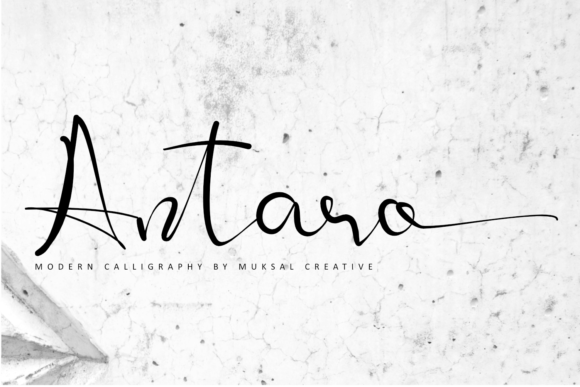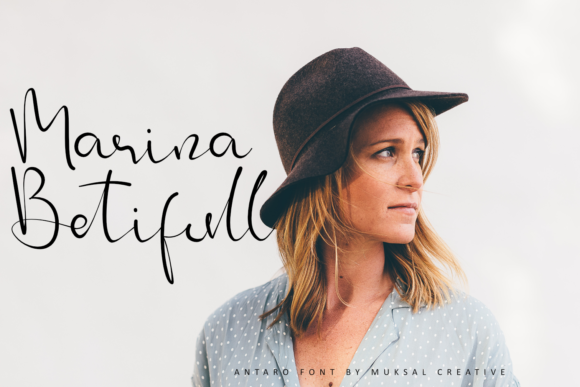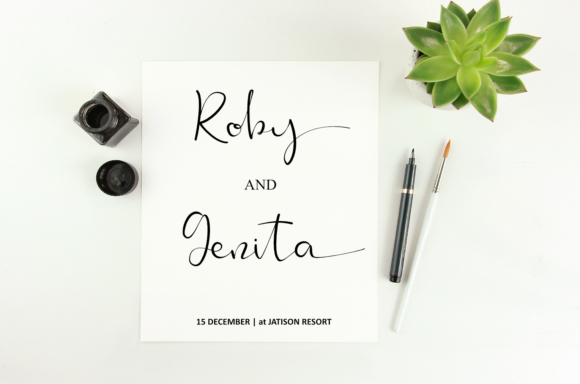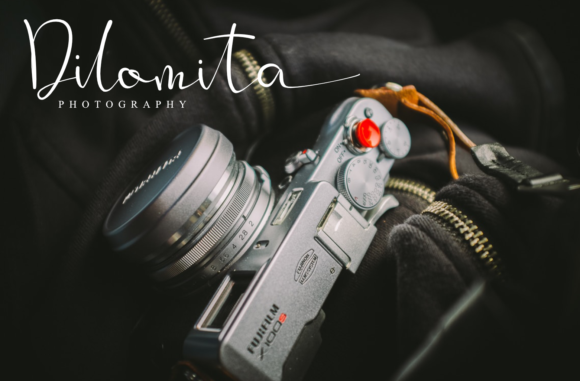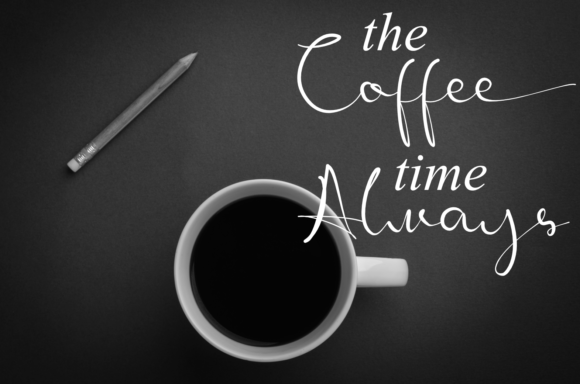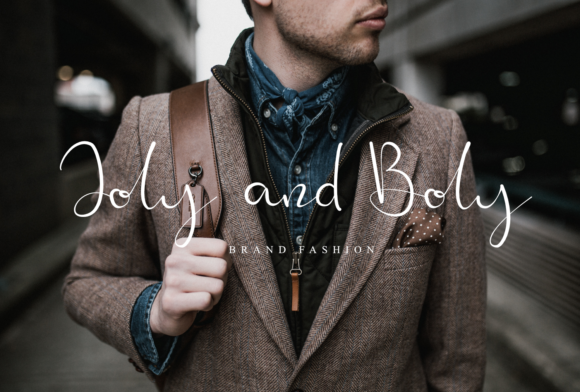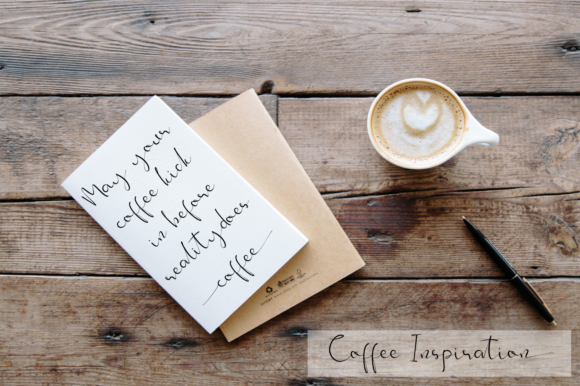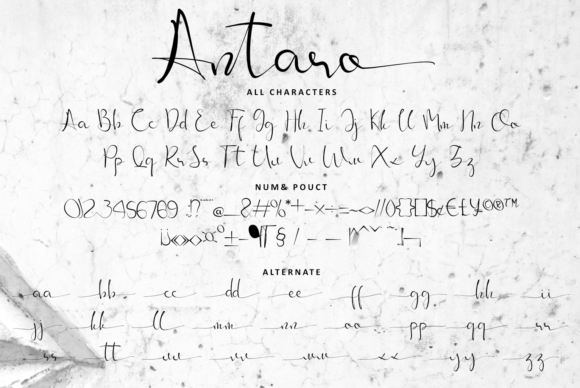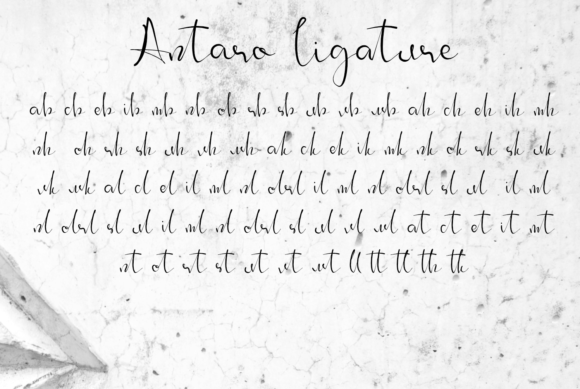
HomeScript FontsAntaro Font Script Fonts Antaro Font FacebookXPinterestWhatsApp Antaro Font Poster 2 Antaro Font Poster 3 Antaro Font Poster 4 Antaro Font Poster 5 Antaro Font Poster 6 Antaro Font Poster 7 Antaro Font Poster 8 Antaro Font Poster 9 About Antaro Font Antaro is a modern and flowing handwritten font. It will add a touch of elegance to any design project! DOWNLOAD ON CREATIVE FABRICAThis font is sold and delivered by Creative Fabrica. Font Canyon may earn a commission if you buy through this link. People also explored Abstraction Font Medellin Script Font Bavella Font Chorettan Font Summer Fruits Font Jakarta Font Malware Font Blou Mehraj Cinta Font 297 0 TagsAntaro Font Previous articleEllouise FontNext articleStella Font LEAVE A REPLY Cancel reply Comment: Please enter your comment! Name:* Please enter your name here Email:* You have entered an incorrect email address! Please enter your email address here Website: Save my name, email, and website in this browser for the next time I comment. Personal Use Free Pattern Personal Use Free Read more about this font The Winter Personal Use Free Read more about this font Zephan Personal Use Free Read more about this font Lynoselt Personal Use Free Read more about this font BLOG Free Fonts Risk: Why Free Fonts Can Be Dangerous for Designers Free Fonts Risk: Why Free Fonts Can Be Dangerous for Designers Using free fonts is a common practice in web and graphic design. However, the... To increase your work productivity, choose the most readable fonts. Best Fonts for YouTube Videos: Make Your Thumbnails Stand Out How to Install and Use Fonts on Windows, macOS, and Web Projects